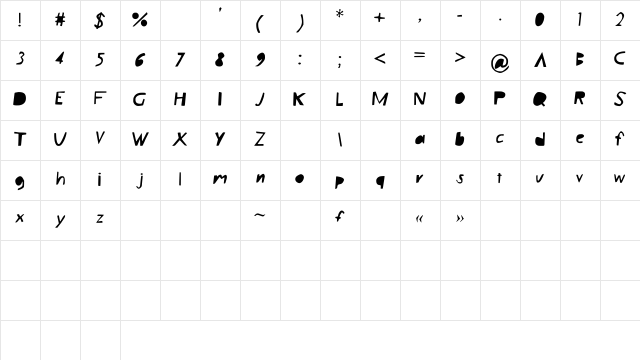
Complete LazyBlock Medium glyph index. Displaying only characters natively supported by LazyBlock Medium font.
LazyBlock is a composed and adaptable typeface that performs quietly and consistently across a wide range of design contexts.